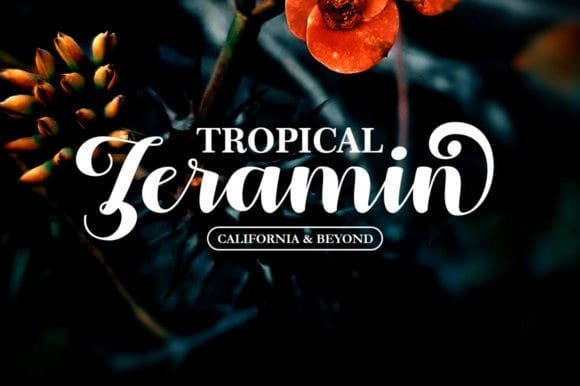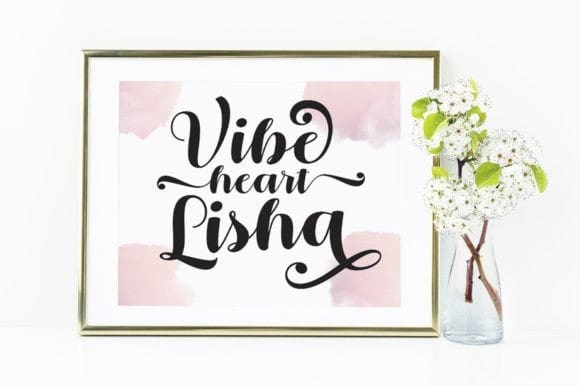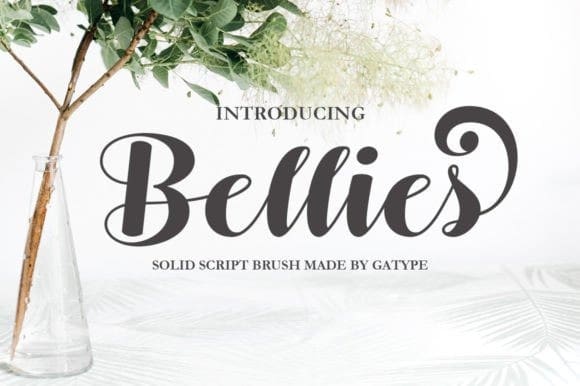
Bellies Script Font
Bellies Script Font, is a modern and sweet calligraphic script font. Masterfully designed to become a true favorite, this font has the potential to bring each of your creative ideas to the highest level!